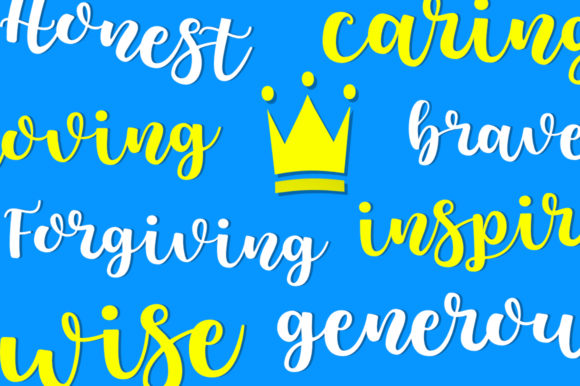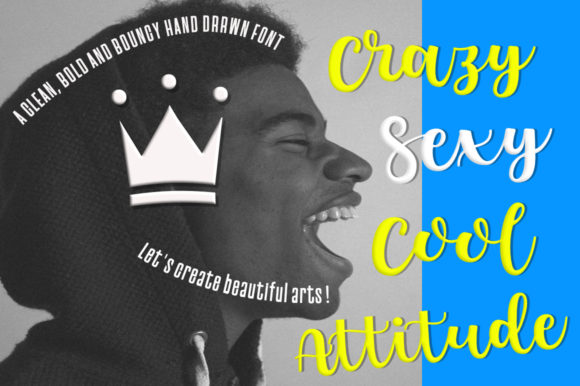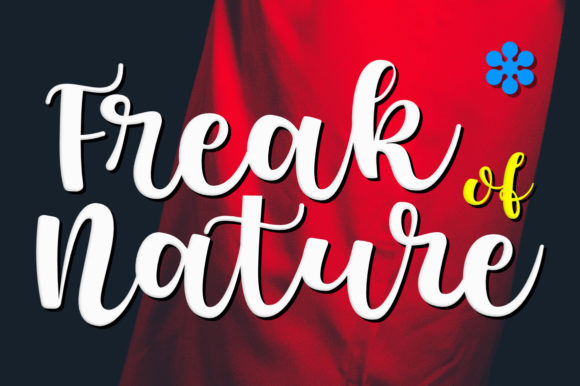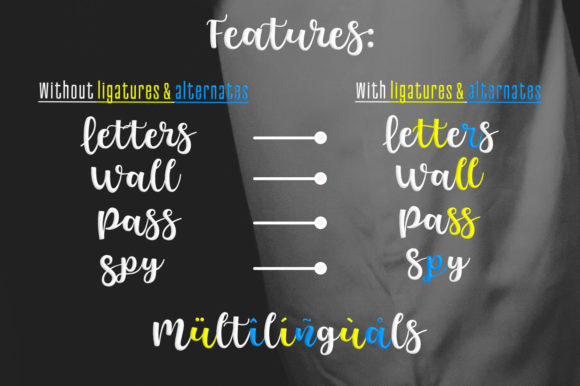
King Billy Font
About King Billy Font
King Billy is a bold and bouncy handwritten script font. With its fun crown details, it’s the ideal font for any royal crafting idea!